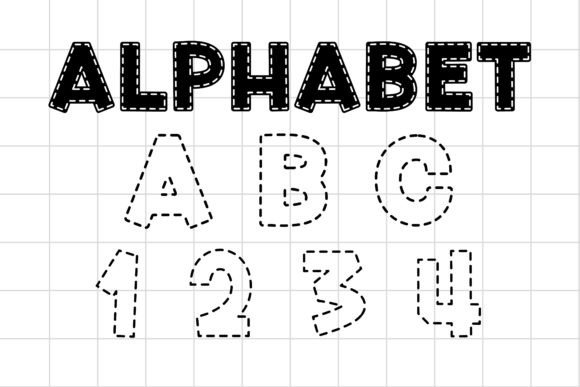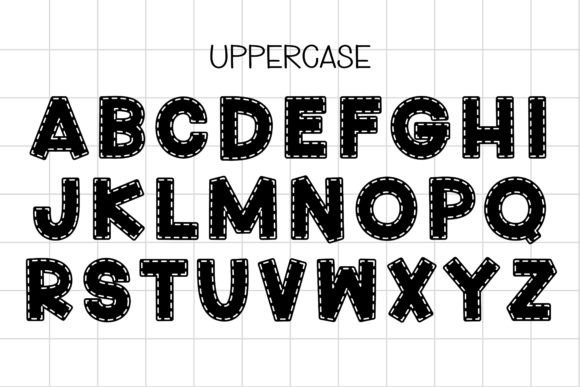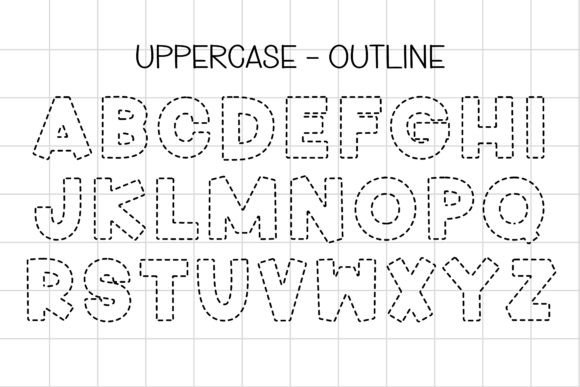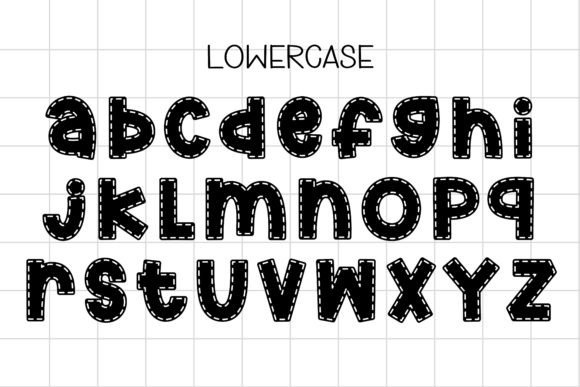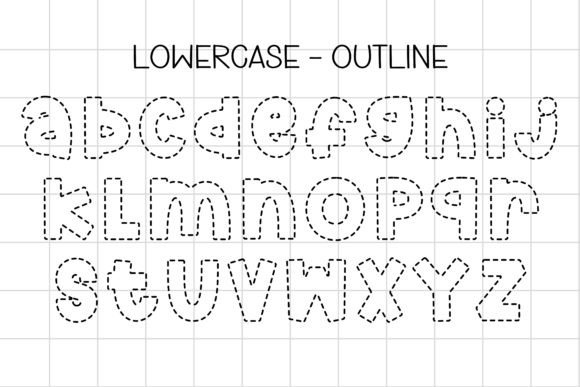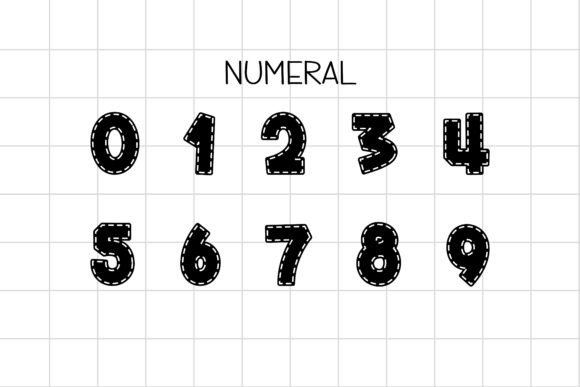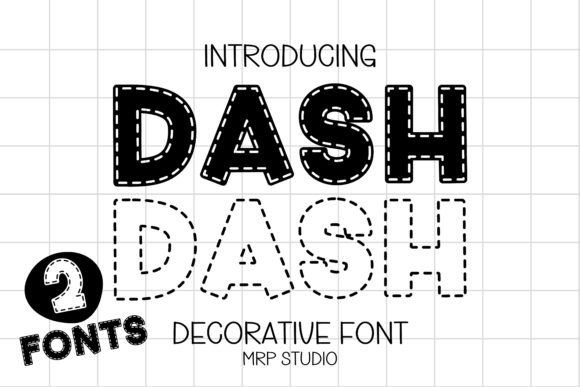
Introducing Dash Font: The Playful and Adorable Decorative Font for Designers and Crafters
Are you a designer, crafter, or digital artist looking for a font that can add a touch of playfulness and adorability to your projects? Look no further than Dash Font! Designed with a focus on creativity and versatility, Dash Font is the perfect choice for anyone looking to add some personality to their designs.
A Font Designed for Creativity
Dash Font is a decorative font that is designed to be playful and fun. Its unique and adorable style makes it perfect for a wide range of projects, from digital designs and presentations to greeting cards and crafting projects. The font’s versatility is one of its standout features, allowing you to use it in a variety of contexts and applications.
Whether you’re a professional designer or a crafter looking for a unique font to add to your projects, Dash Font is an excellent choice. Its playful and adorable style makes it perfect for:
• Digital designing: Add a touch of personality to your digital designs, from social media graphics to website headers.
• Crafting: Use Dash Font to add a playful touch to your crafting projects, from scrapbooking to card making.
• Presentations: Make your presentations stand out with a unique and engaging font that will capture your audience’s attention.
• Greeting card making: Create adorable and personalized greeting cards for any occasion.
The Only Limit is Your Imagination
One of the best things about Dash Font is that it’s only limited by your imagination. With its versatile and playful style, you can use it to create a wide range of projects and designs. From fun and colorful graphics to more subtle and sophisticated designs, Dash Font is the perfect choice for anyone looking to add some personality to their work.
Key Features of Dash Font
So what makes Dash Font so special? Here are just a few of its key features:
• Playful and adorable design: Dash Font is designed to be fun and engaging, making it perfect for projects that require a touch of personality.
• Versatile: Use Dash Font for a wide range of projects, from digital designs to crafting and greeting card making.
• Unique: Dash Font’s unique style sets it apart from other fonts, making it perfect for designers and crafters looking for something new and exciting.
Tips for Using Dash Font
Here are a few tips for getting the most out of Dash Font:
• Experiment with different colors: Dash Font looks great in a variety of colors, so don’t be afraid to experiment and find the perfect hue for your project.
• Mix and match: Combine Dash Font with other fonts and design elements to create a unique and engaging design.
• Keep it simple: Don’t be afraid to keep things simple and use Dash Font on its own. Its playful style makes it perfect for designs that require a touch of personality but don’t need a lot of extra elements.
In conclusion, Dash Font is a playful and adorable decorative font that is perfect for designers and crafters looking to add some personality to their projects. With its versatile style and ease of use, it’s an excellent choice for anyone looking to create engaging and unique designs. So why wait? Download Dash Font today and see what amazing projects you can create!